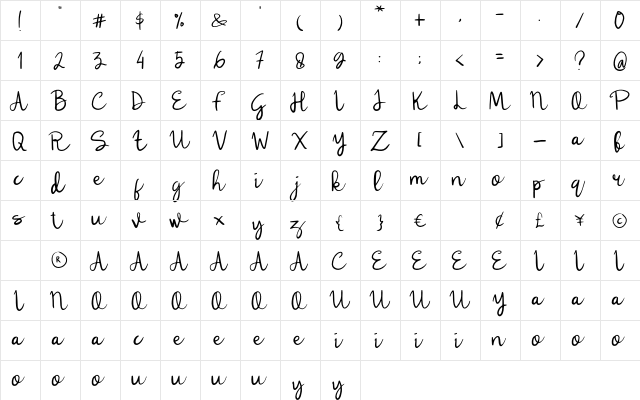
Lulla Font Regular
Design Context for Lulla Font Typeface
Lulla Font is a composed and adaptable typeface that performs quietly and consistently across a wide range of design contexts.